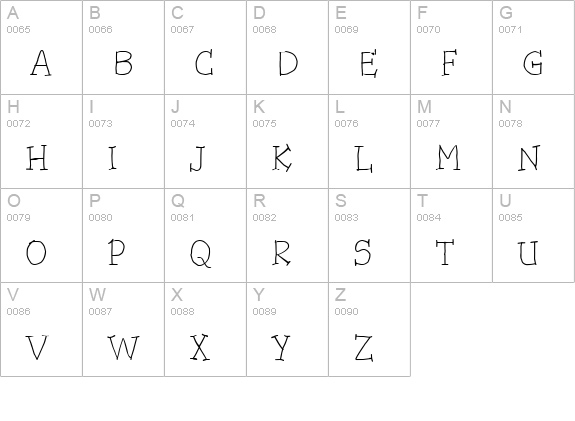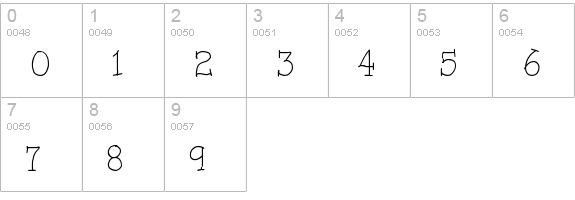
Trots Light - HMK Font Details
Trots Light - HMK is a refined, elegant variant in the Trots typeface family \xE2\x80\x94 well suited to elegant body text, refined sub-headings, and luxury branding.
Trots Light - HMK font is a stunning display font that will make your designs shine with its elegant and modern appearance. With its sleek lines and clean curves, this font exudes sophistication and professionalism. It is the perfect choice for any project that requires a touch of class and style. What makes Trots Light - HMK font even more appealing is that it is completely free! Yes, you read that right. This remarkable font is freely available to download at FontsMarket.com. So, you can enhance your designs without breaking the bank. Whether you are working on branding materials, advertisements, posters, or any other creative project, Trots Light - HMK font will surely captivate your audience and leave a lasting impression. Its versatility allows it to be used in a wide range of applications, from corporate designs to fashion and beauty projects. The sleek and modern design of Trots Light - HMK font is complemented by its excellent legibility, making it a great choice for both headlines and body text. This font is meticulously crafted to ensure optimum readability, even at small sizes. Impress your clients, colleagues, and friends with the stunning visual impact of Trots Light - HMK font. Its timeless design and attention to detail will elevate your designs to new heights. And the best part? You can download it for free at FontsMarket.com. Don't miss out on this incredible opportunity to enhance your designs with Trots Light - HMK font. Download it now and let your creativity soar.